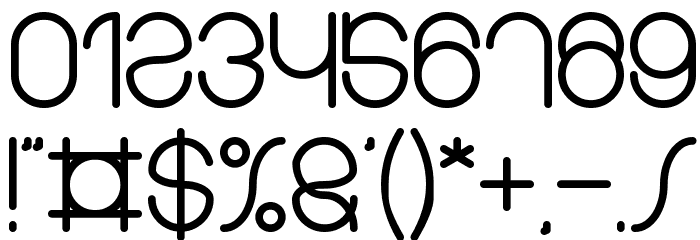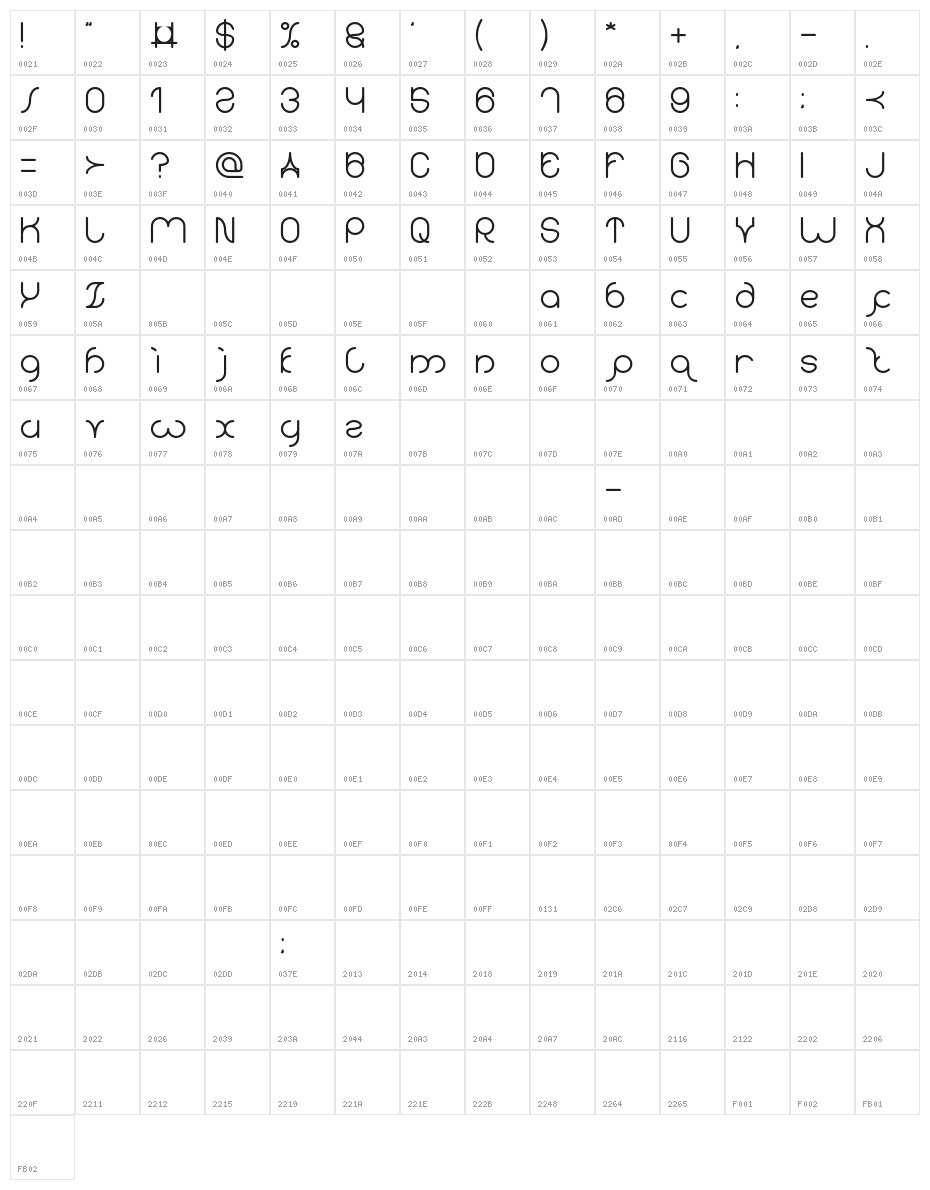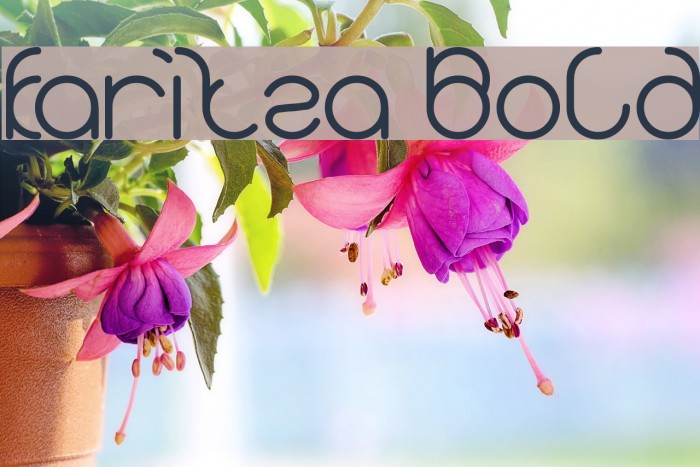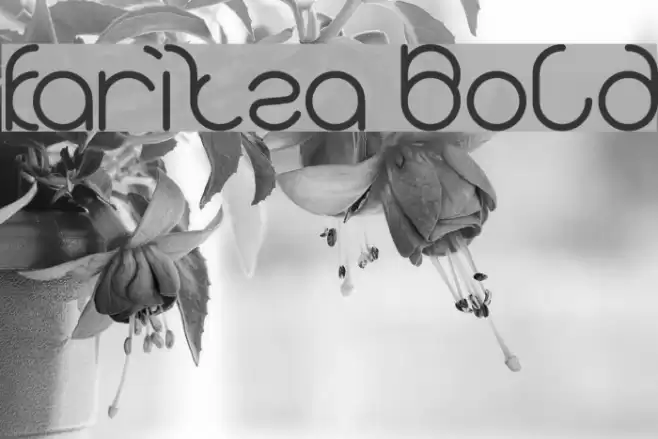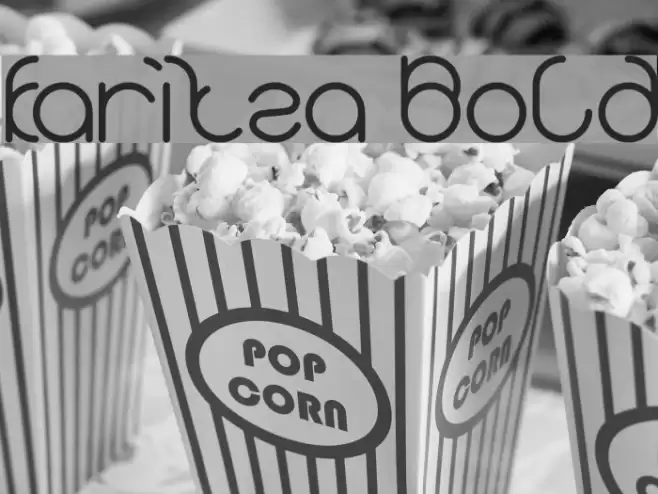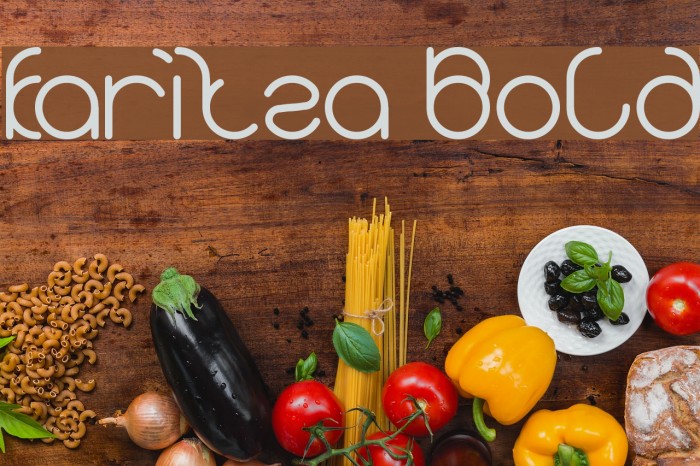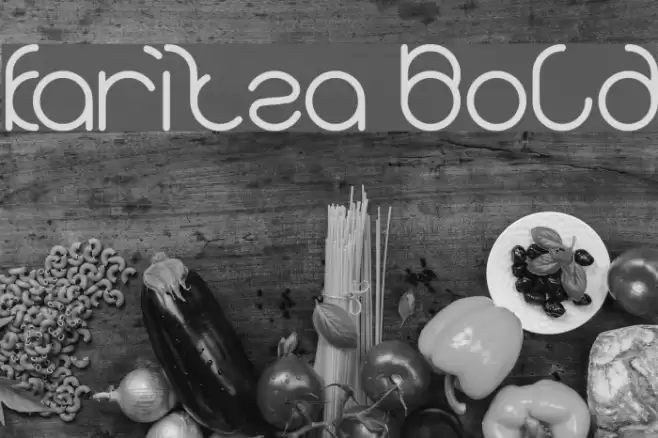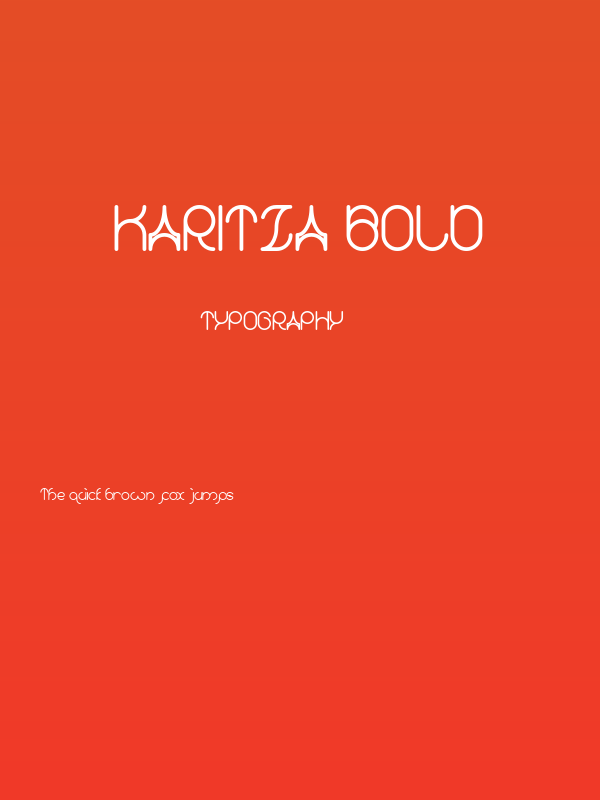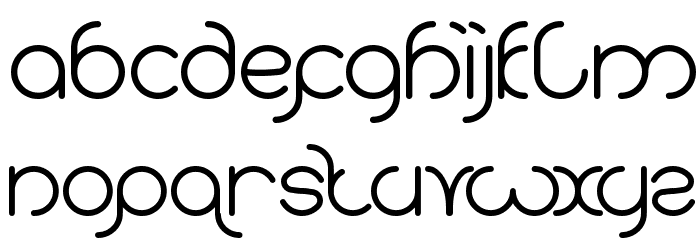
karitza Bold Font
karitza Bold Description
This font features a unique, rounded style with a modern and playful aesthetic. The characters are formed with continuous, smooth lines that create a sense of fluidity and movement. The uppercase and lowercase letters maintain a consistent height, contributing to a harmonious appearance. The numbers and special characters are designed with the same rounded edges, ensuring uniformity across the entire typeface. This font's distinct style makes it stand out, offering a fresh and contemporary look suitable for various creative projects.